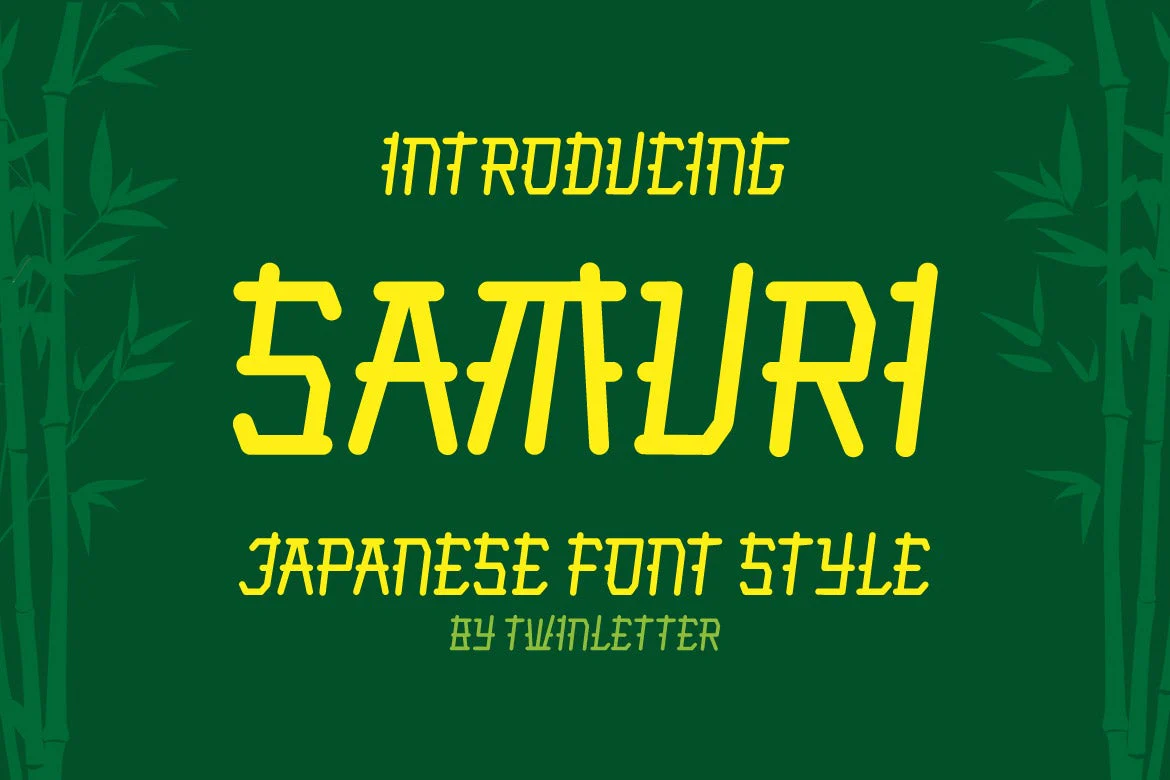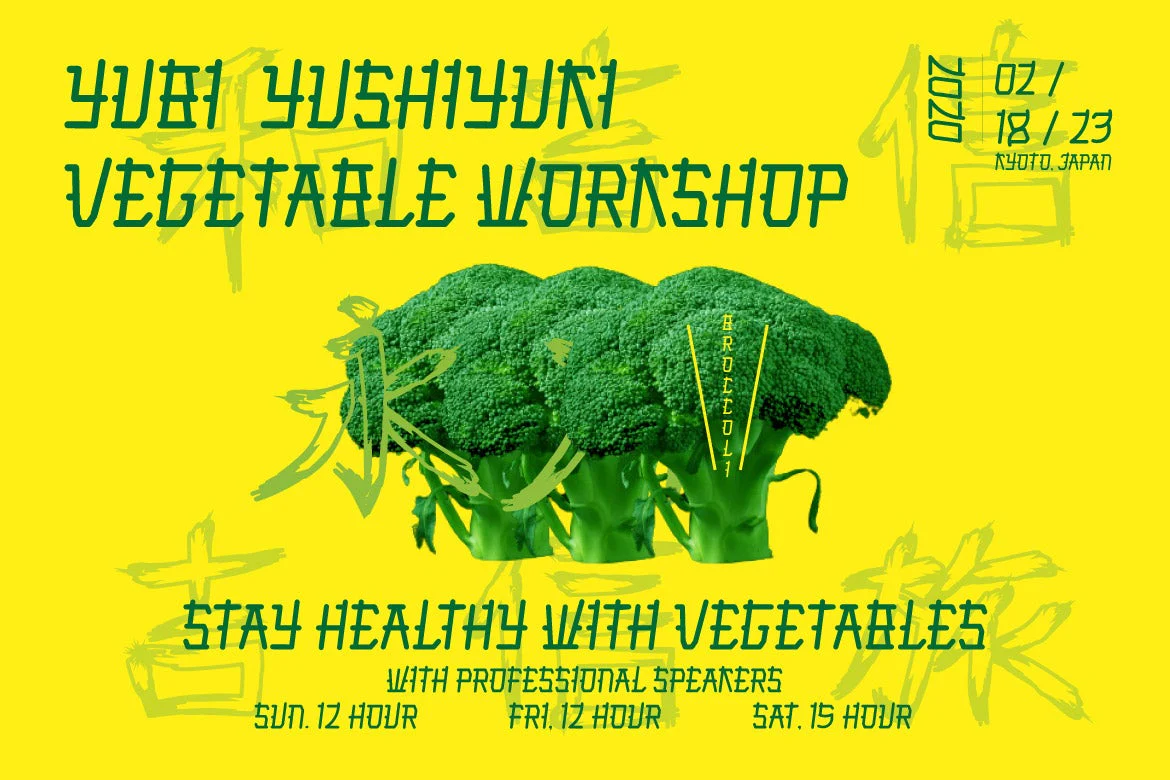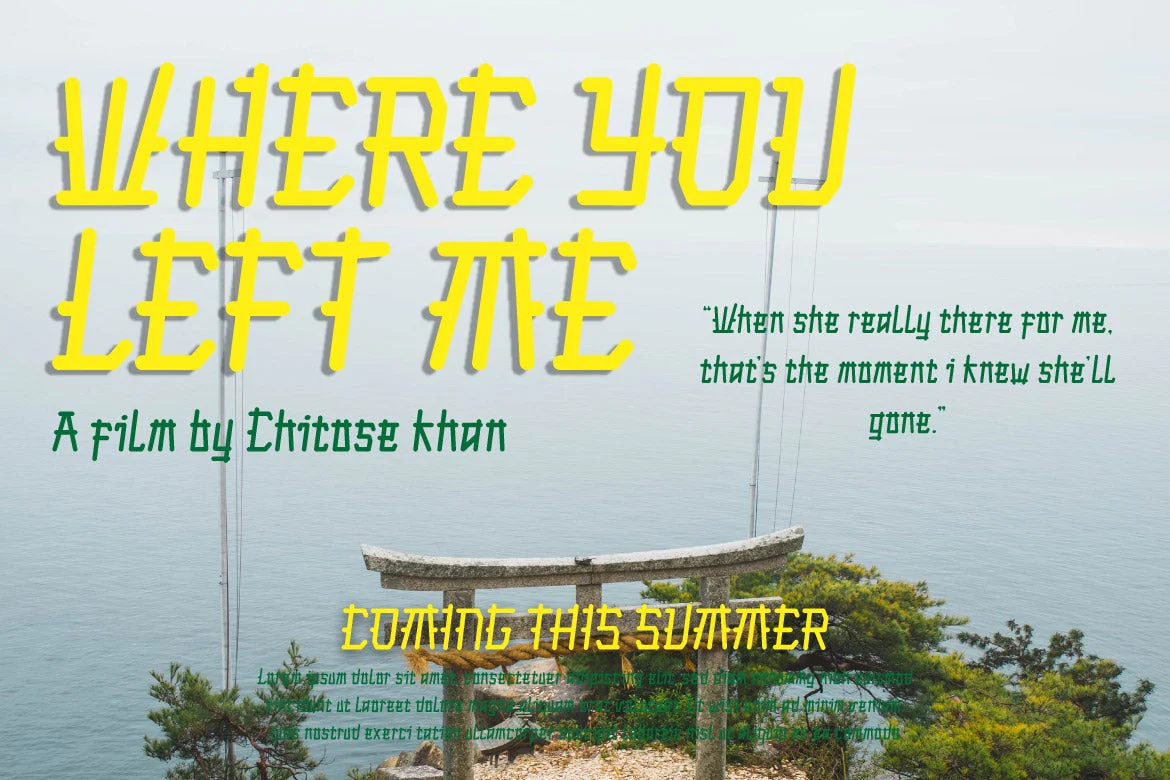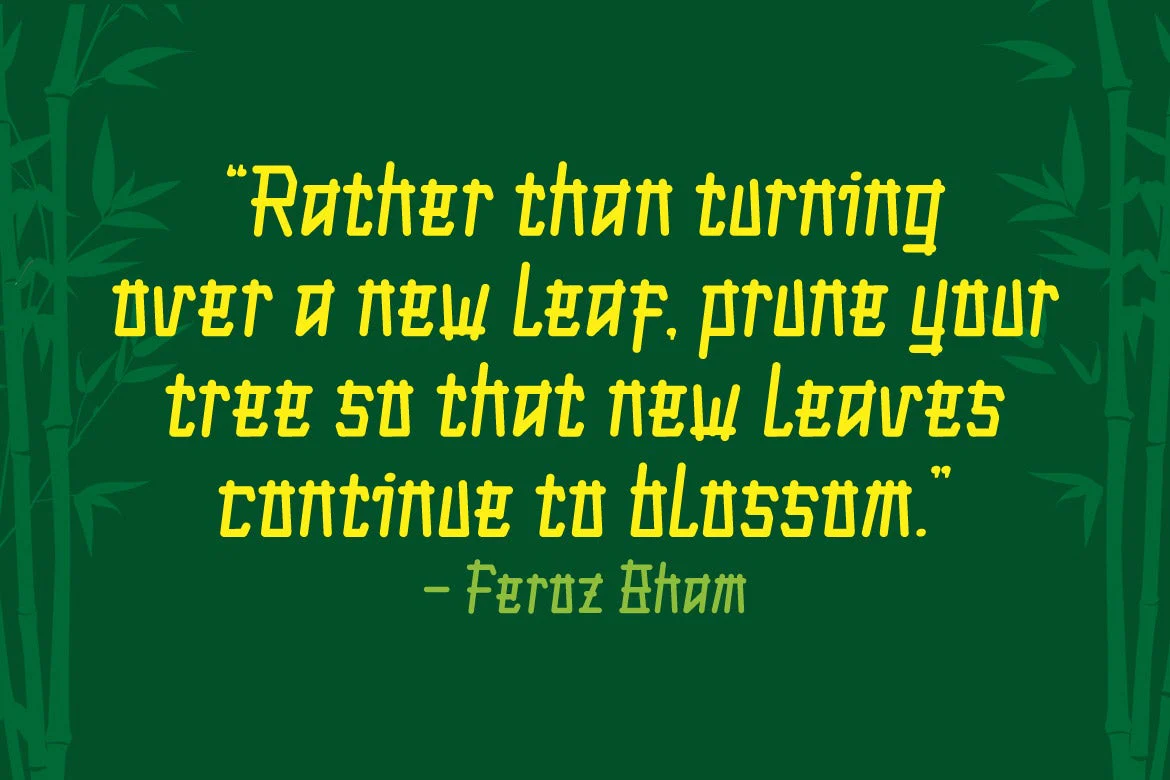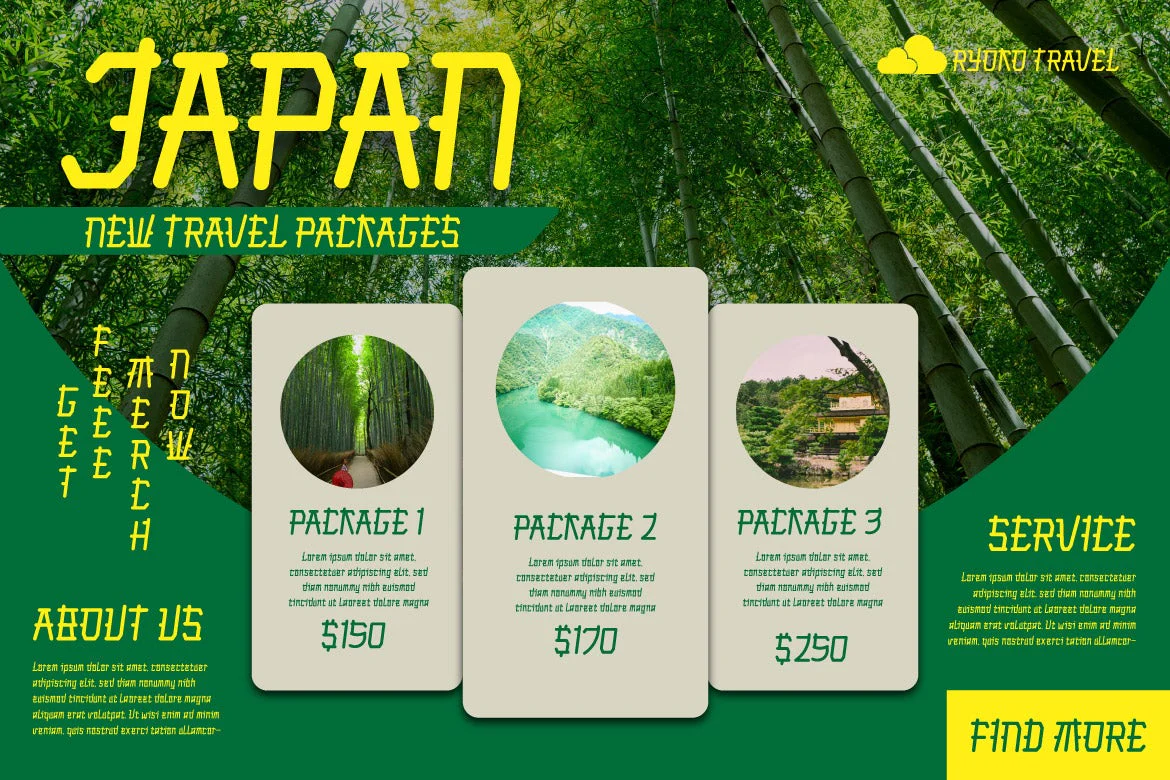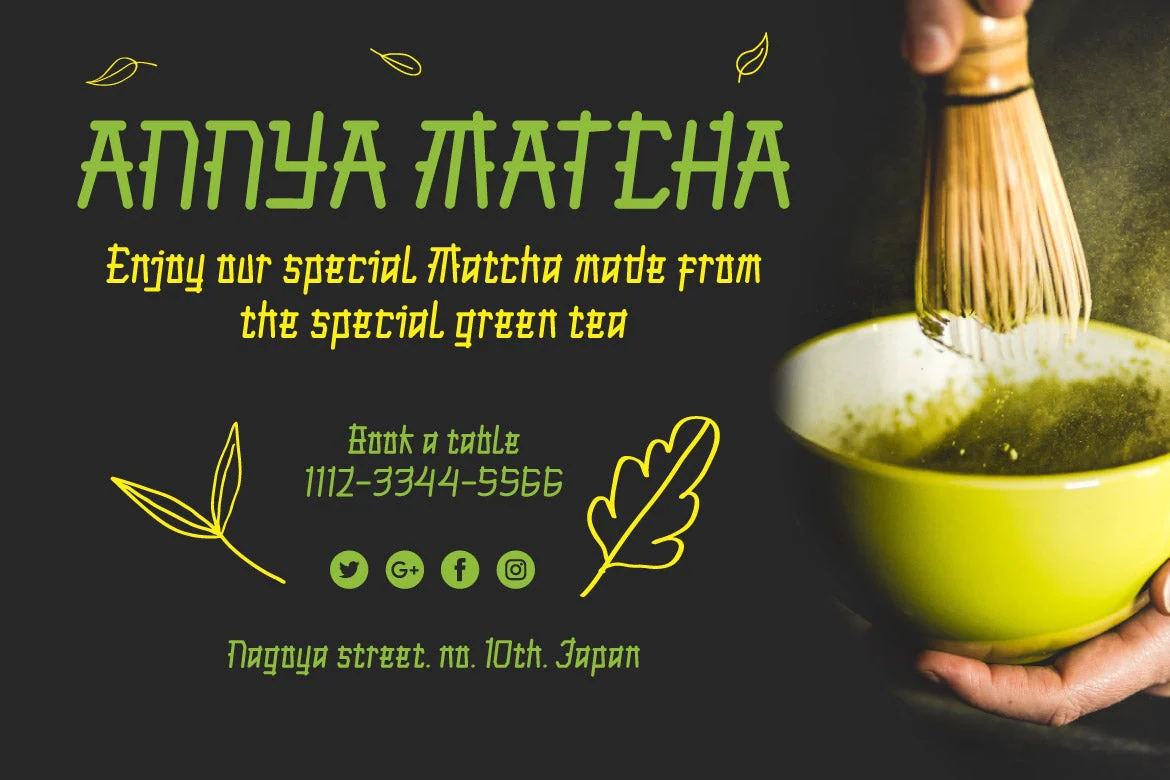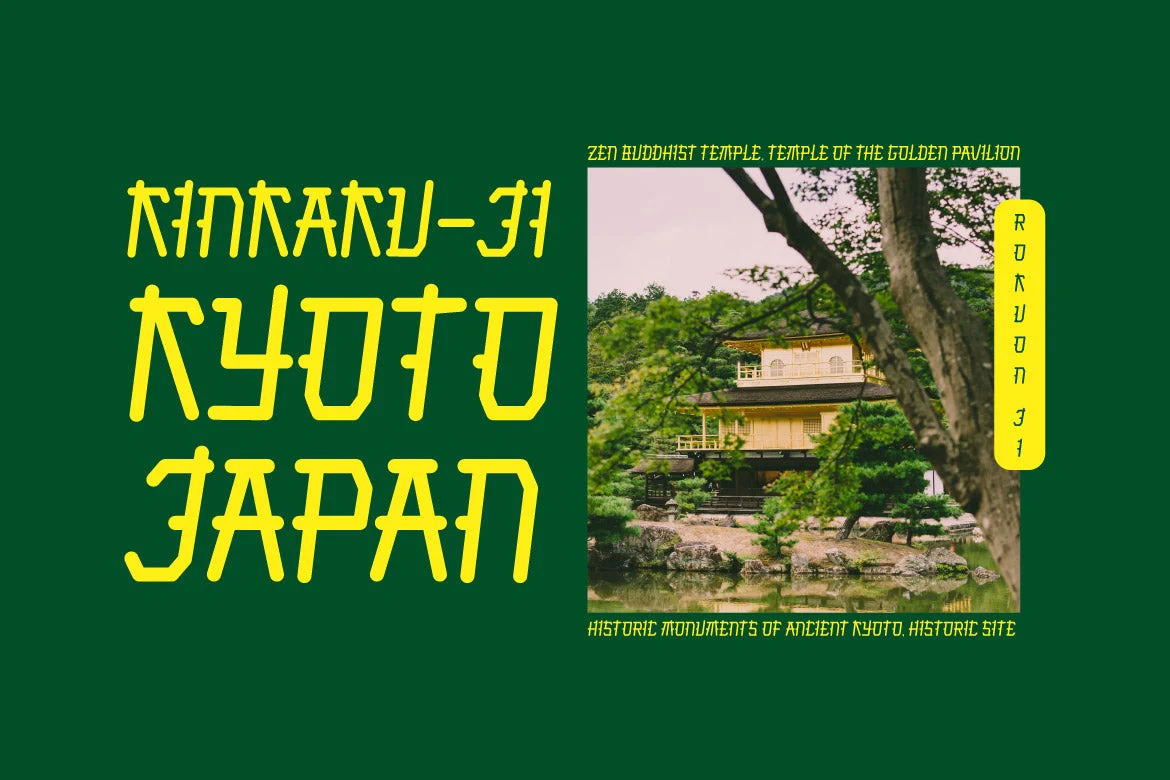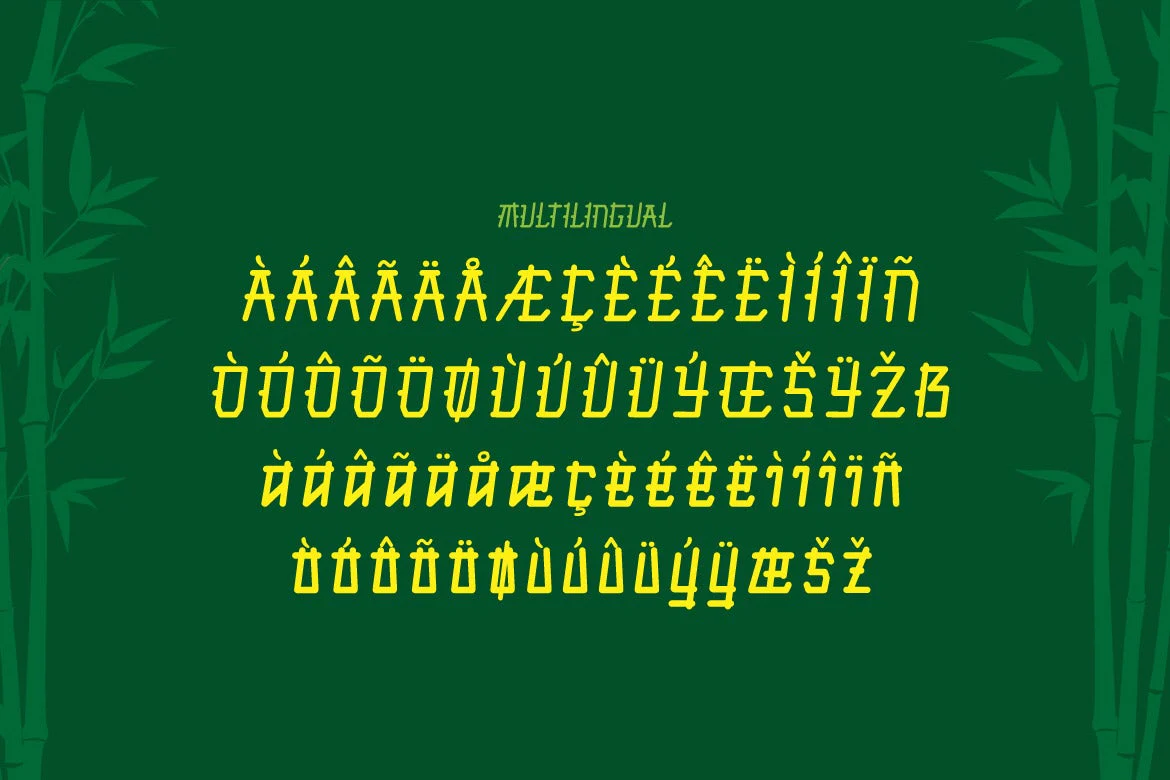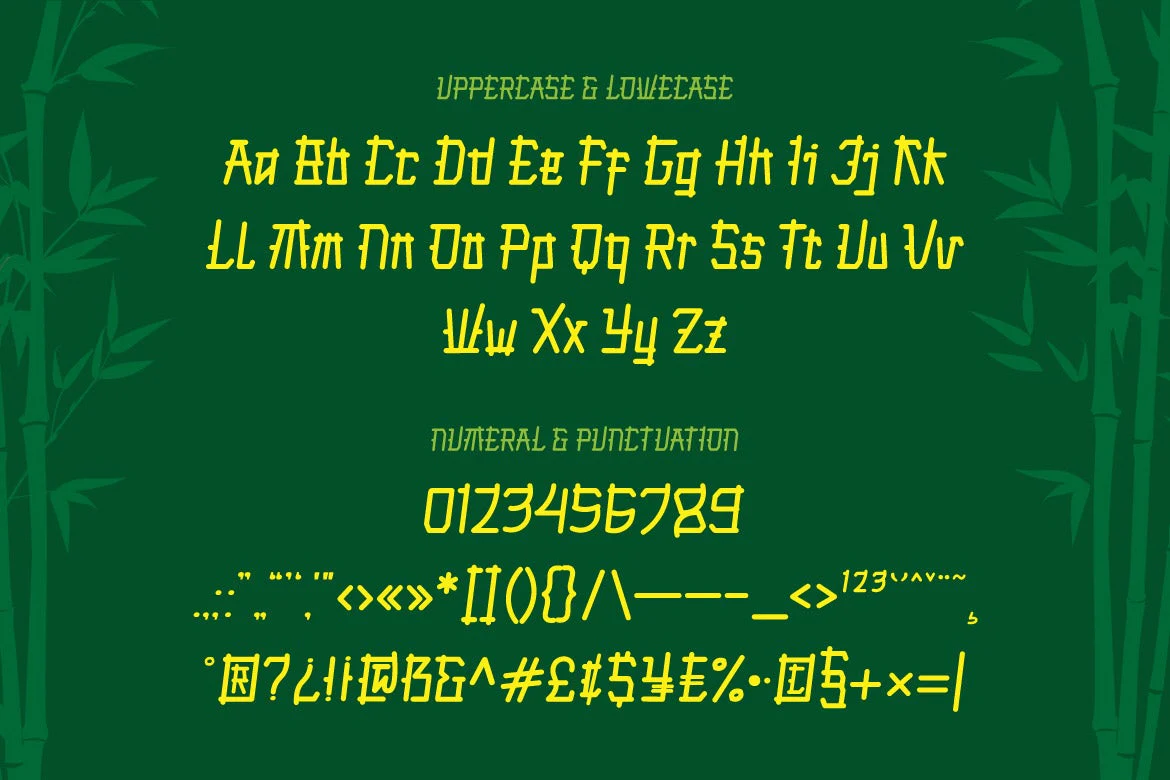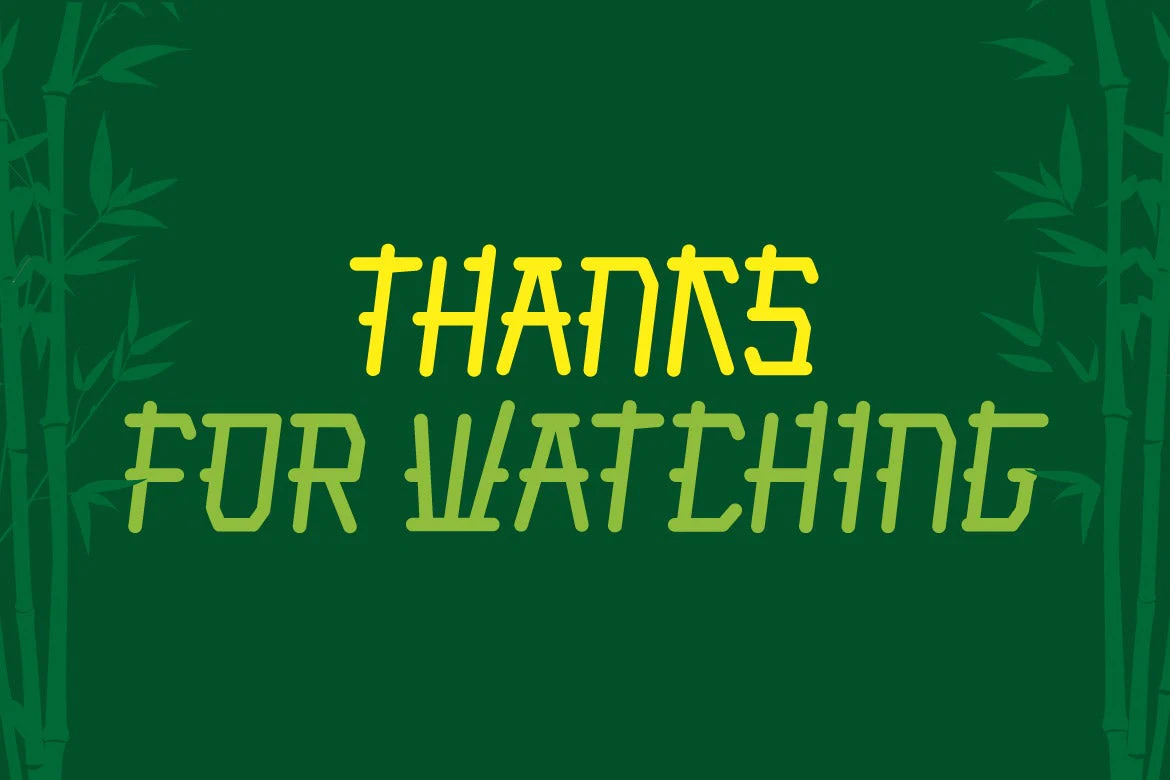
Samuri Faux Japanese Font
SAMURI is our newest font with Japanese style features, developed with an exotic and relaxed shape, this font is extremely attractive to match your extraordinary project, using this font will instantly make your project look exquisite, charming, and everyone will be glad to view the look. Unlike the rest, your project will be one-of-a-kind.
Logotypes, food banners, branding, brochure, posters, movie titles, book titles, quotes, and more may all benefit from this font.
Of course, using this font in your various design projects will make them excellent and outstanding; many viewers are drawn to the striking and unusual graphic display.